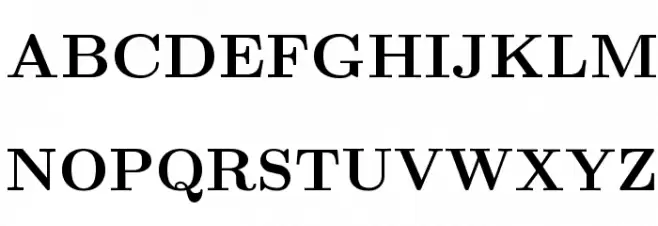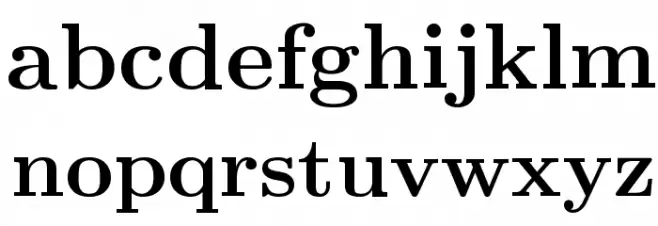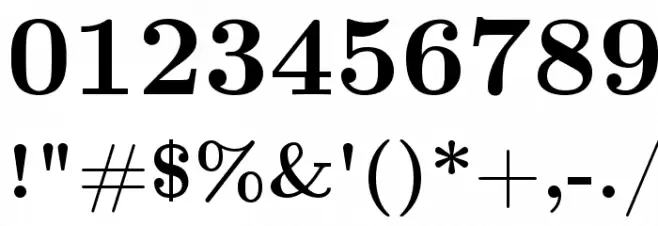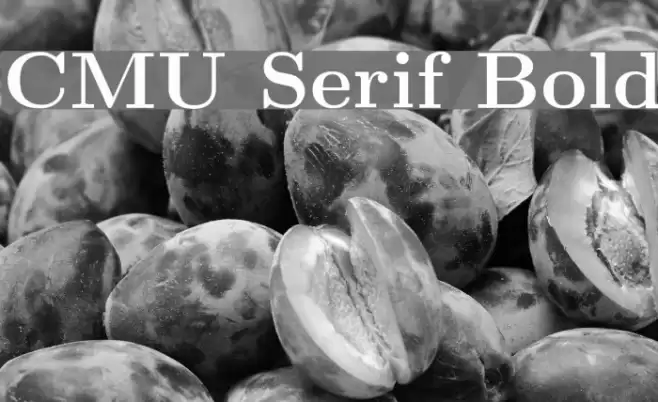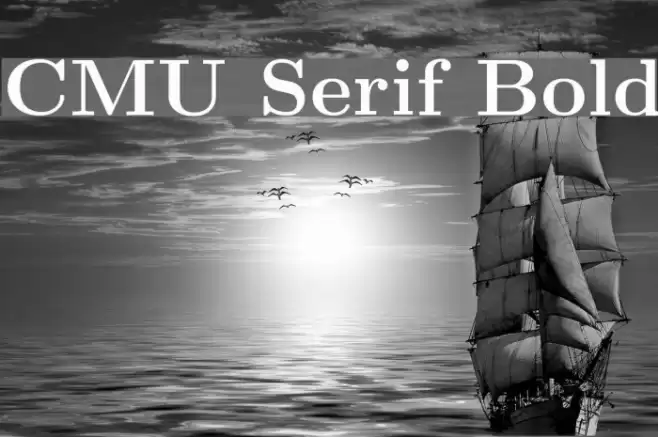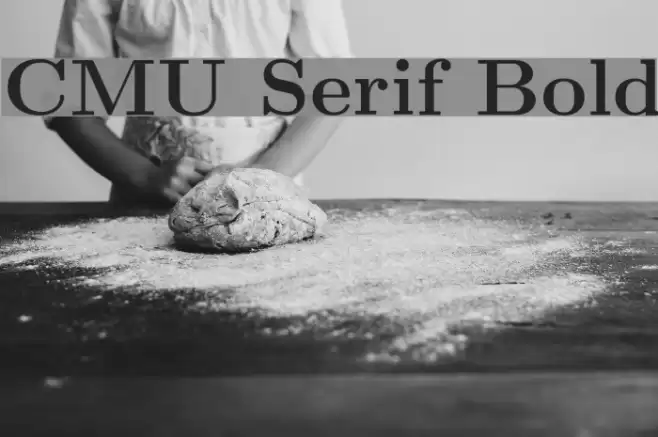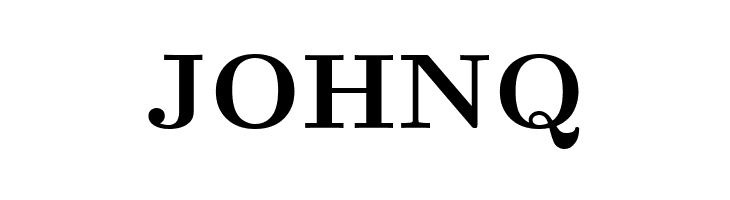
CMU Serif Bold Font
CMU Serif Bold Description
This serif typeface exudes a classic and scholarly aesthetic, characterized by its bold weight and strong presence. The letters are well-defined with sharp serifs, providing a traditional and authoritative look. The uppercase characters are tall and commanding, while the lowercase letters maintain a balanced and readable form. The numerals are clear and consistent, making them suitable for both text and numerical data. The special characters are distinct and integrate seamlessly with the overall style, ensuring versatility across various applications.
A bold serif typeface with a classic and authoritative style.
- Proposed Projects: Ideal for academic publications, formal documents, book typesetting, and any project requiring a traditional and professional appearance.
- Category: Serif
- Overall Style: Classic
- Use Case: Headlines, Body text, Formal documents